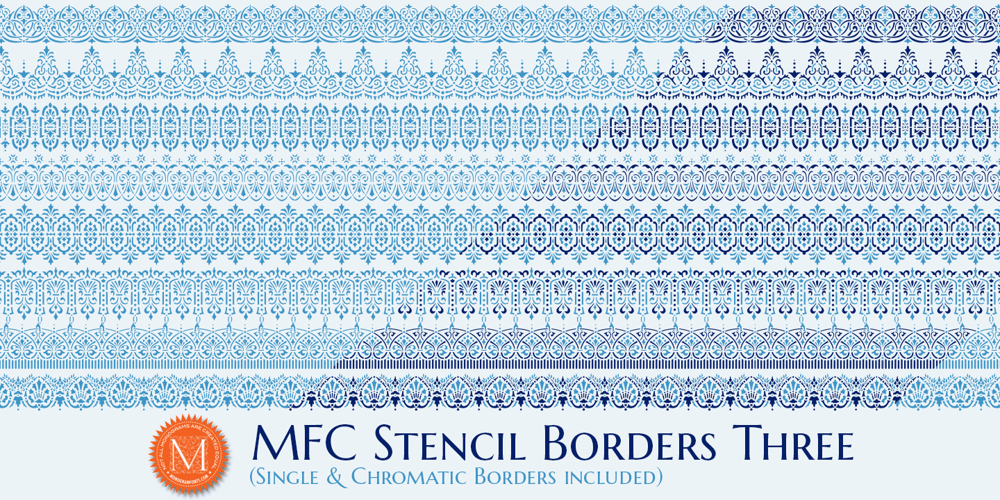
MFC Stencil Borders Three
MFC Stencil Borders Three font
MFC Stencil Borders Three Font Family was designed by Brian J. Bonislawsky and published by Monogram Fonts Co.. MFC Stencil Borders Three contains 5 styles and family package options. The inspiration source for MFC Stencil Borders Three are stencil patterns from the circa early 1900’s Blue Label Brand Stencil booklet. The original designs were produced as single color stencils designs, mostly as trims (without corners to complete them as borders). We’ve not only added corners to make them fully functional borders, but we’ve also created two-color layerable chromatic styles, for more fun and diversity. For the first time, this decorative border collection is available digitally. You can start with a new document or work on a new layer within an existing document. Select MFC Stencil Borders Three from the font menu. (Some users may have font previewing enabled in the font menu which will cause the font name to appear as border elements, disable this option in order to choose the name) Make certain that the point size of the font is the same as the leading being applied to the font so the borders will meet up properly. While we’ve adjusted this within the font, your program may override these settings. For instance a 12 point font should have 12 points of leading. A PDF guidebook for MFC Stencil Borders Three is available via the Gallery Tab.